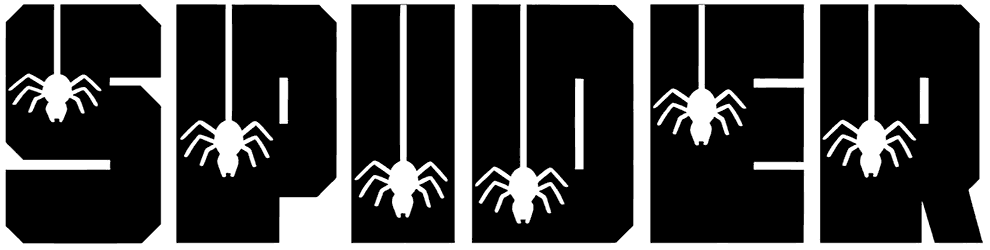
Spider Font
Are you running out of time to deliver your projects and create extra decorations? So save your time by downloading Spider. This decorative font has spiders hanging inside each letter and can create an old and abandoned atmosphere for you.
It works very well in mysterious and scary designs. This spider font does not support small letters and can bring you a lot of freedom of action in the title, main headline, or book cover design.
Spider is a cool, unique and quirky decorative font, featuring little spiders on each character. It embodies playfulness and authenticity and is the perfect choice for any children activity or school project. Add this chunky lettered font to your designs and notice how it makes them come alive!